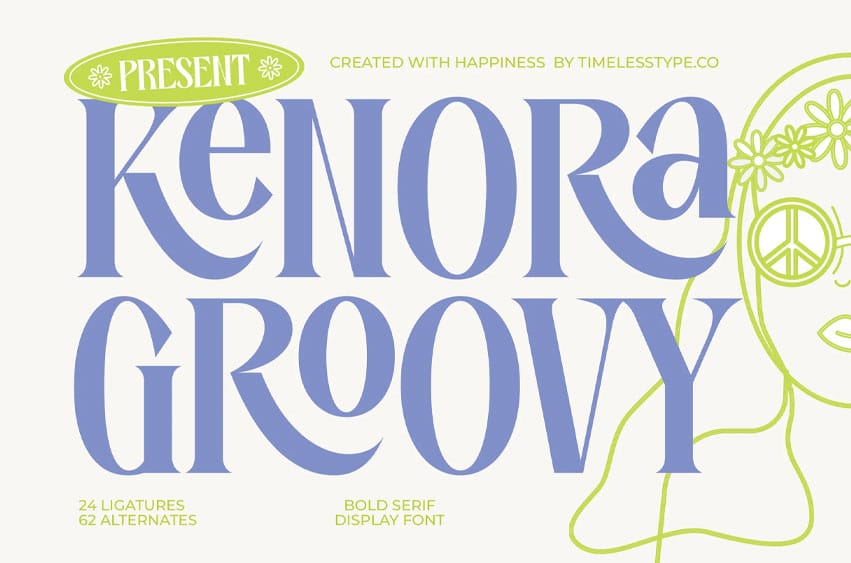
Kenora Groovy Font is a bold serif display font inspired by retro design and 70s aesthetics. With 24 ligatures and 62 alternates, it combines playful curves and elegant shapes for a unique and artistic typographic look. Perfect for posters, album covers, packaging, and branding projects, Kenora Groovy brings a nostalgic yet modern vibe that fits both vintage and contemporary design styles.